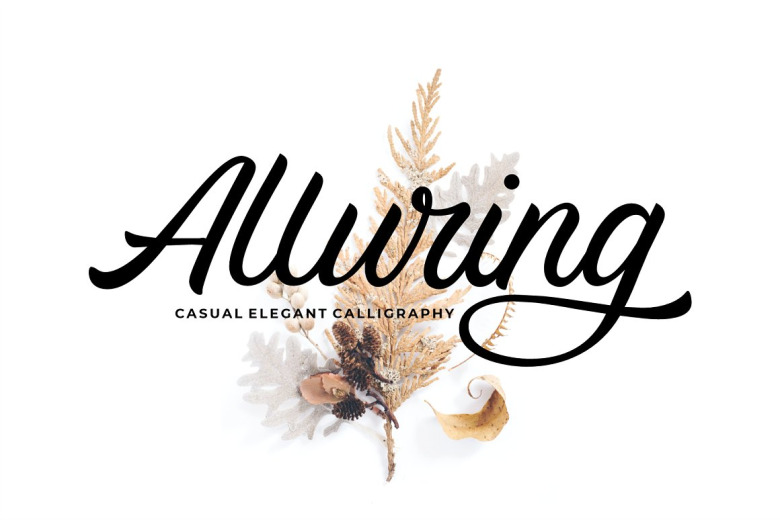
Alluring Font
Alluring comes in a simple & elegant calligraphy script font that provides a handwriting effect. The rope font contains ligatures, alternates characters, and a variety of punctuation and numerals, as well as other types of accented and multilingual support, including foreign language characters. The design of Alluring Fonts is intended to mimic real hand writing. Headlines are a good option because the design is simple and straightforward.
Alluring Calligraphy Script Font